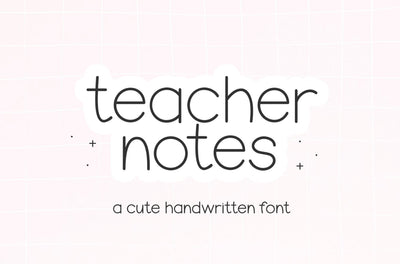
Teacher Notes - Cute Handwriting Font
Teacher Notes is a cute handwriting font.
This font is perfect for your svg designs, goodnotes, teachers, shirts, mugs, quotes, text projects and more!